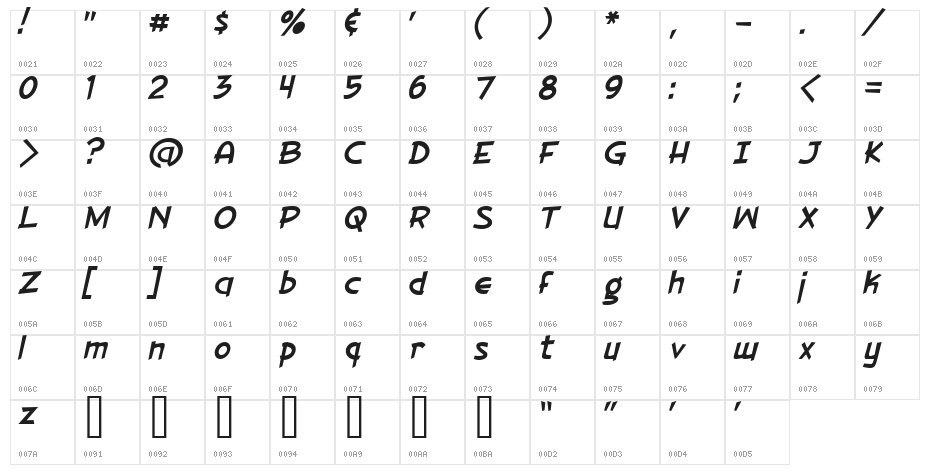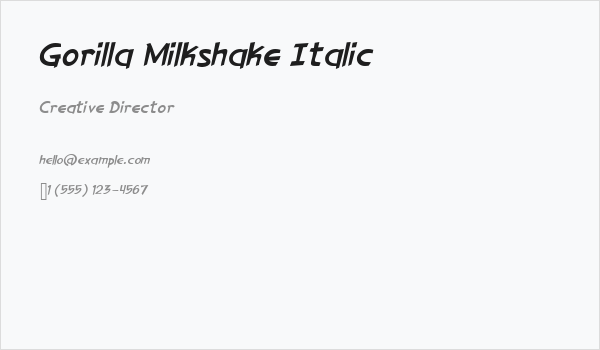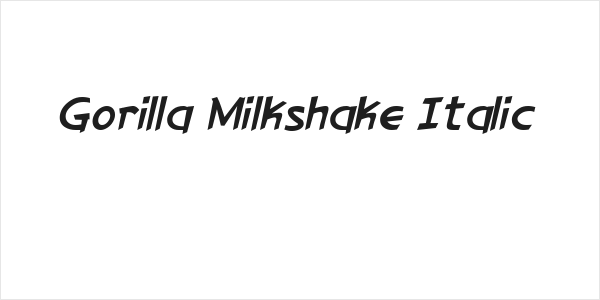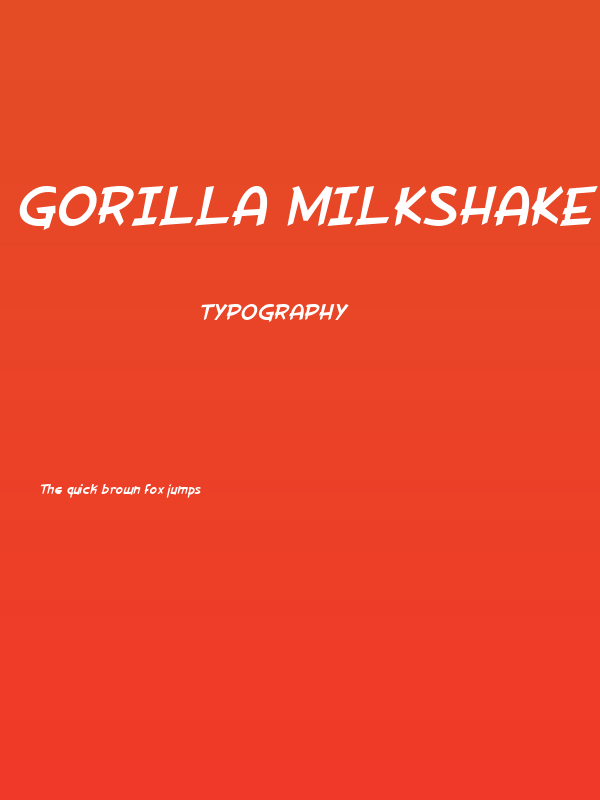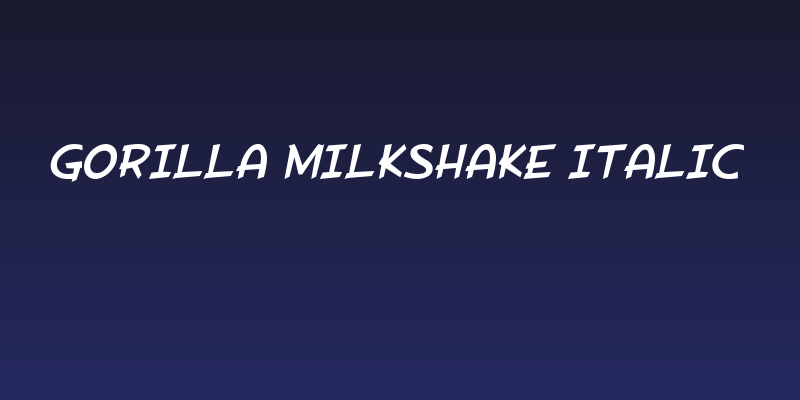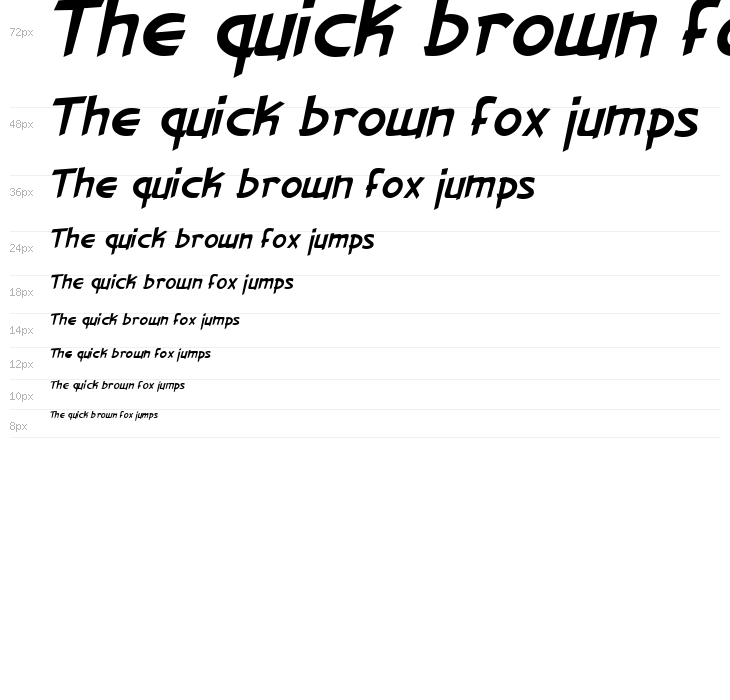
Gorilla Milkshake Italic Font
Gorilla Milkshake Italic Description
This font features a dynamic and energetic style with a distinct italic slant, giving it a sense of movement and flair. The characters are bold and slightly condensed, with sharp angles and smooth curves that create a modern and edgy appearance. The uppercase letters are tall and commanding, while the lowercase letters maintain a consistent flow, enhancing readability. The numerals are clear and robust, matching the overall boldness of the font. Special characters are designed with the same attention to detail, ensuring a cohesive look across all glyphs. This font is perfect for projects that require a strong and impactful visual presence.